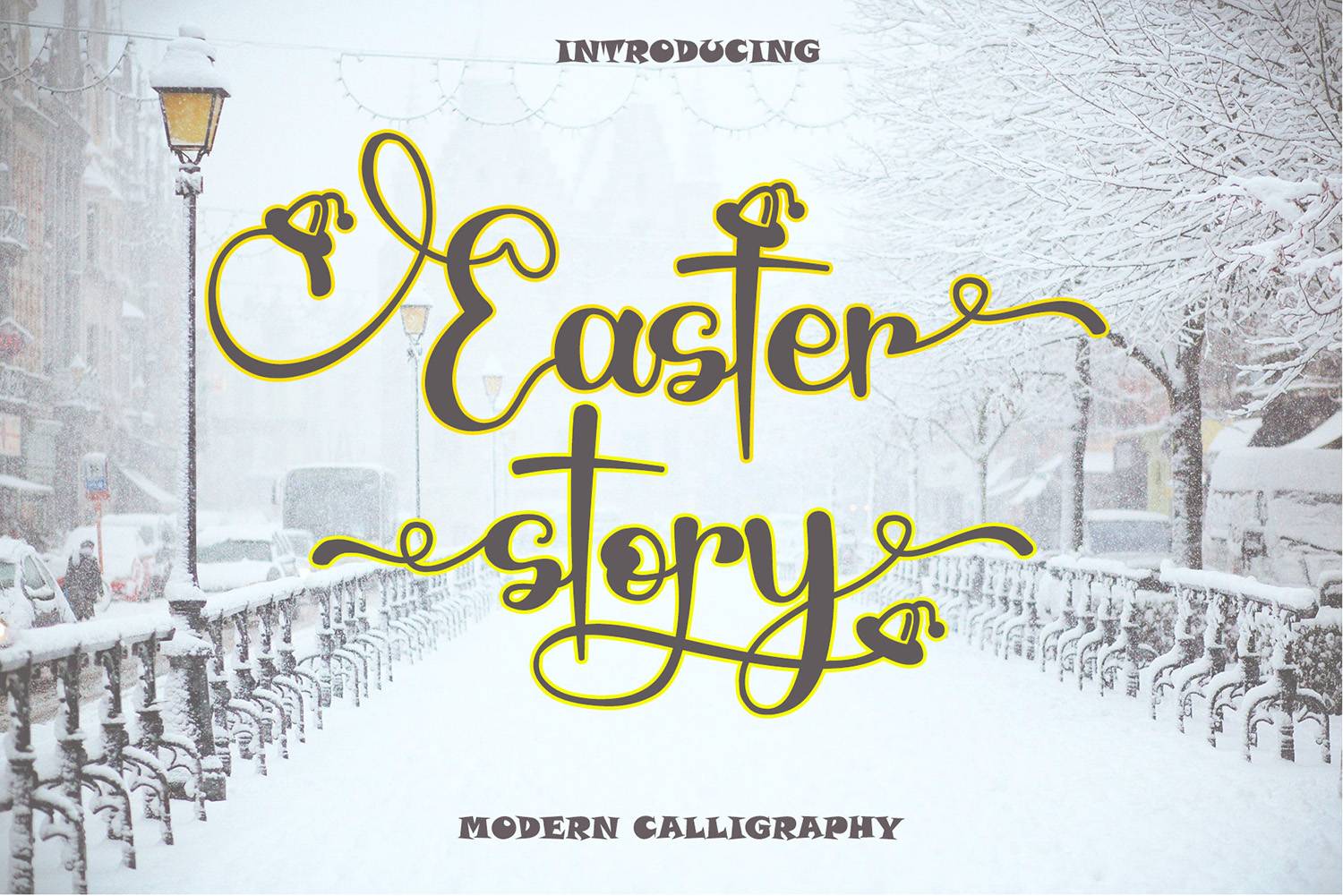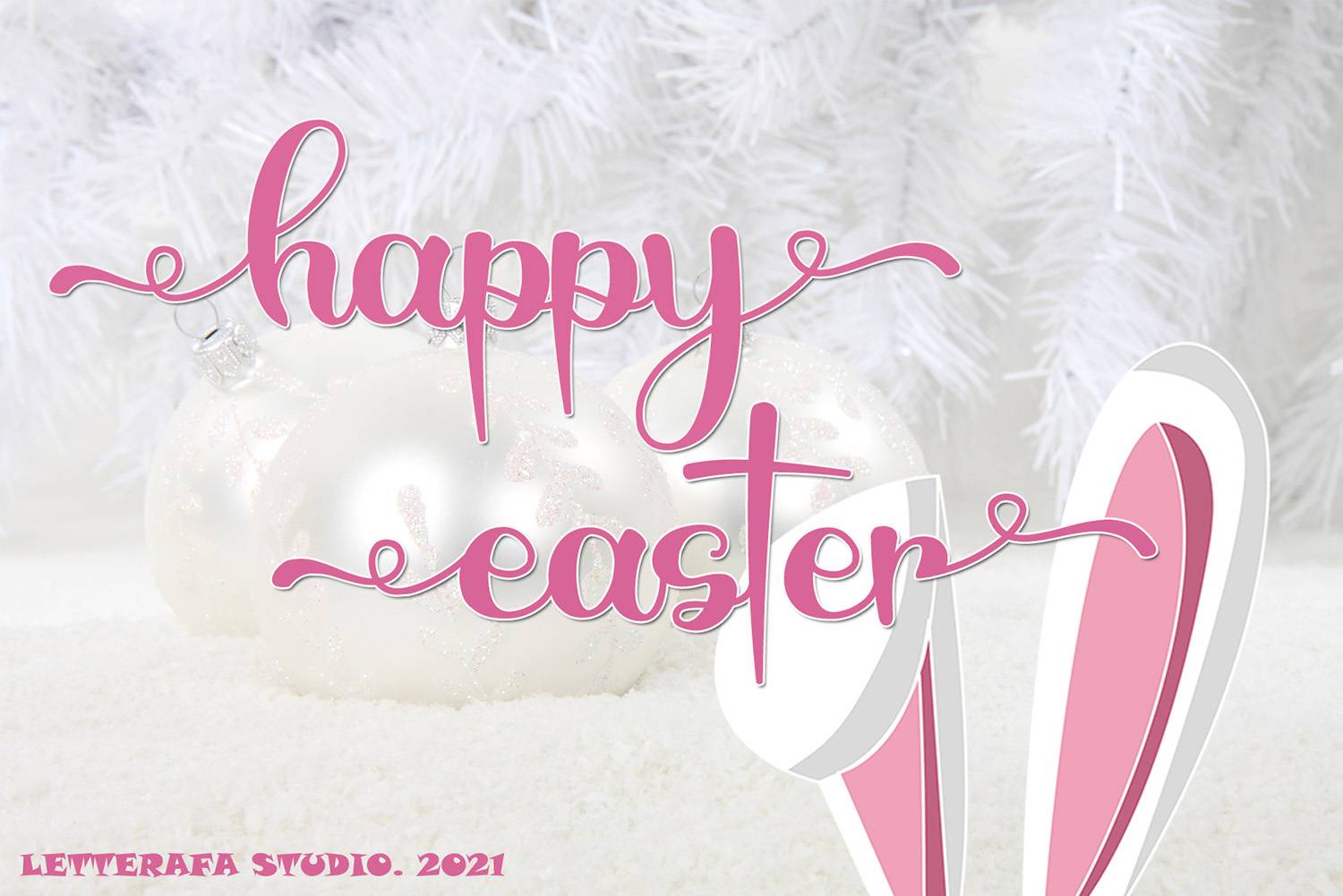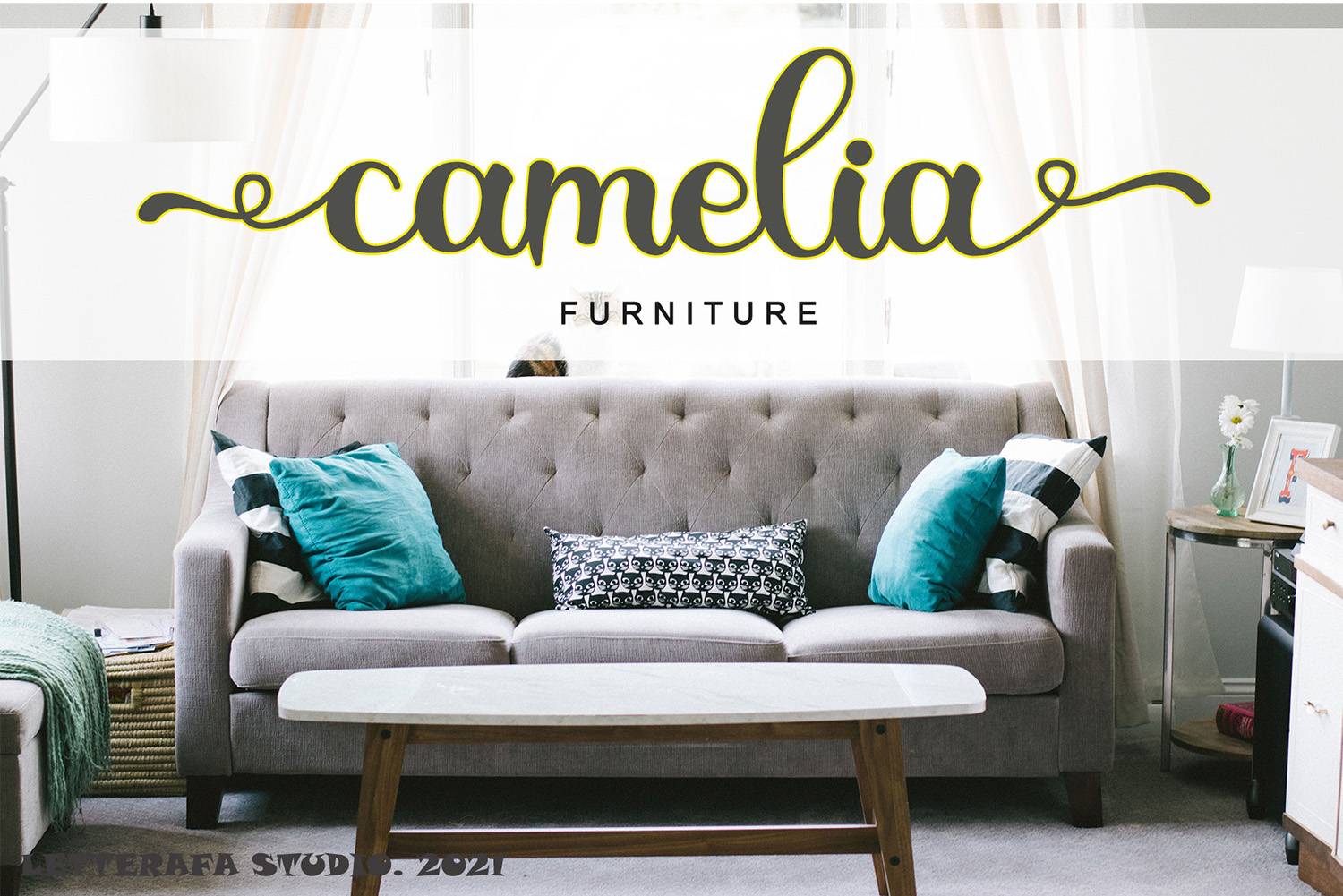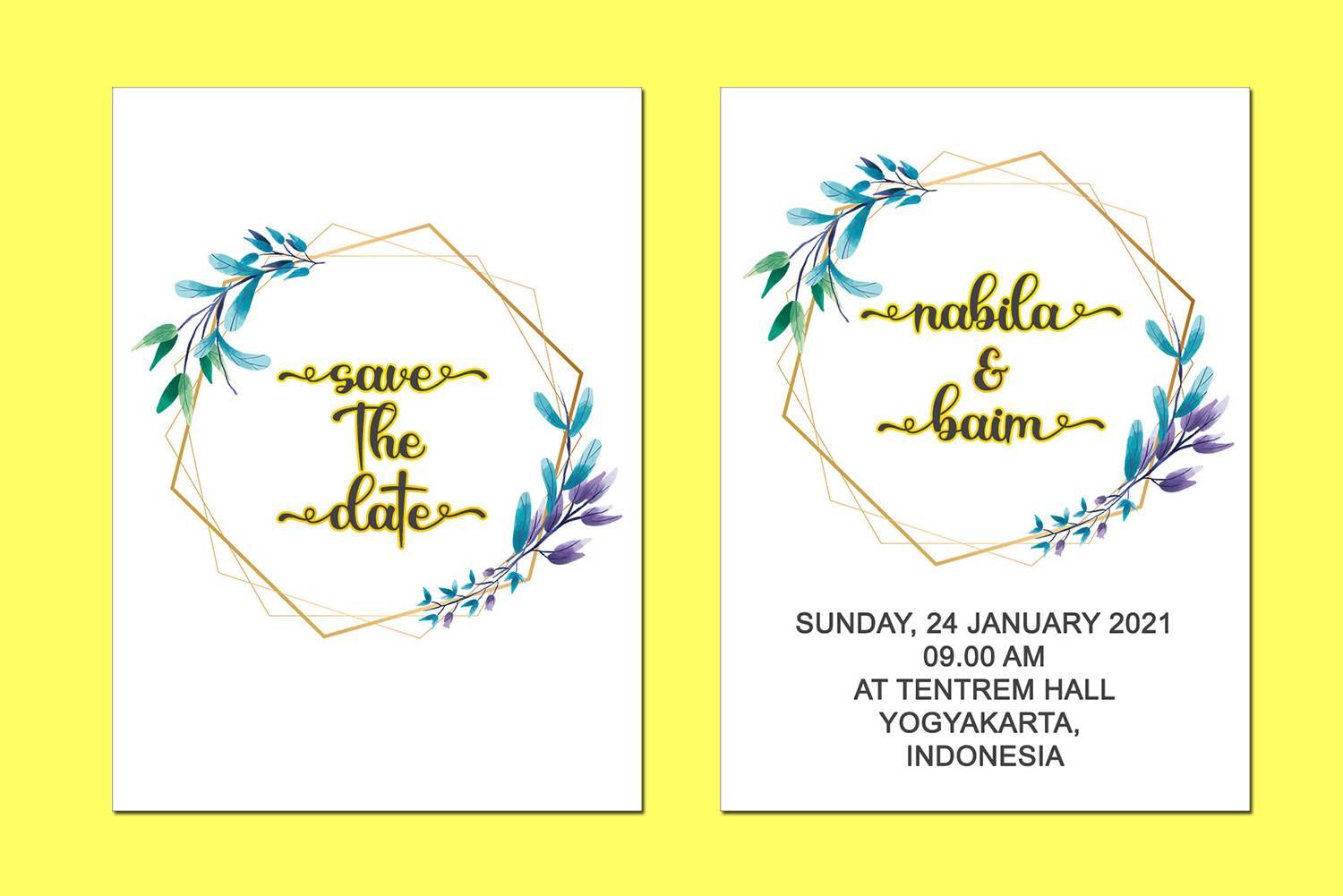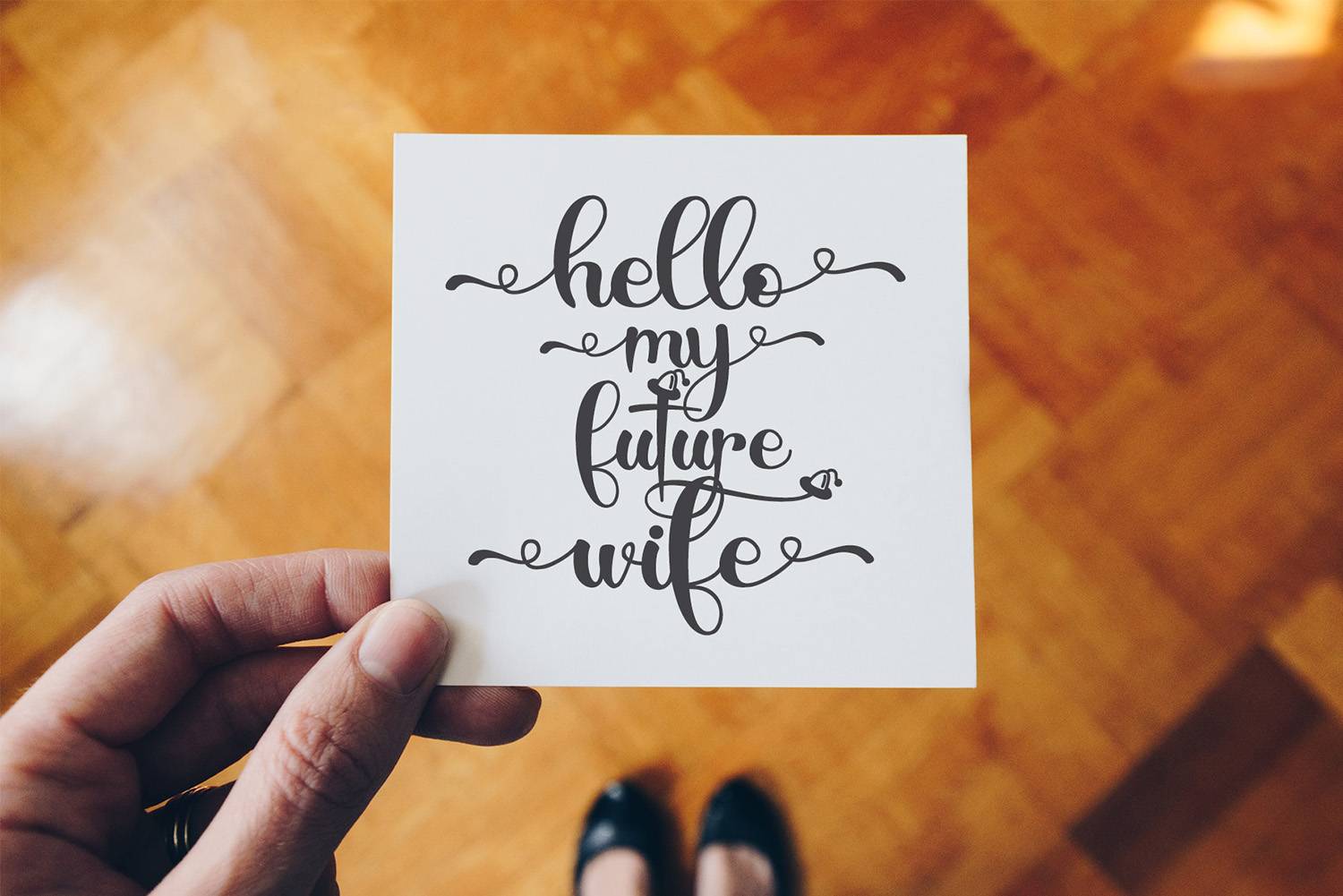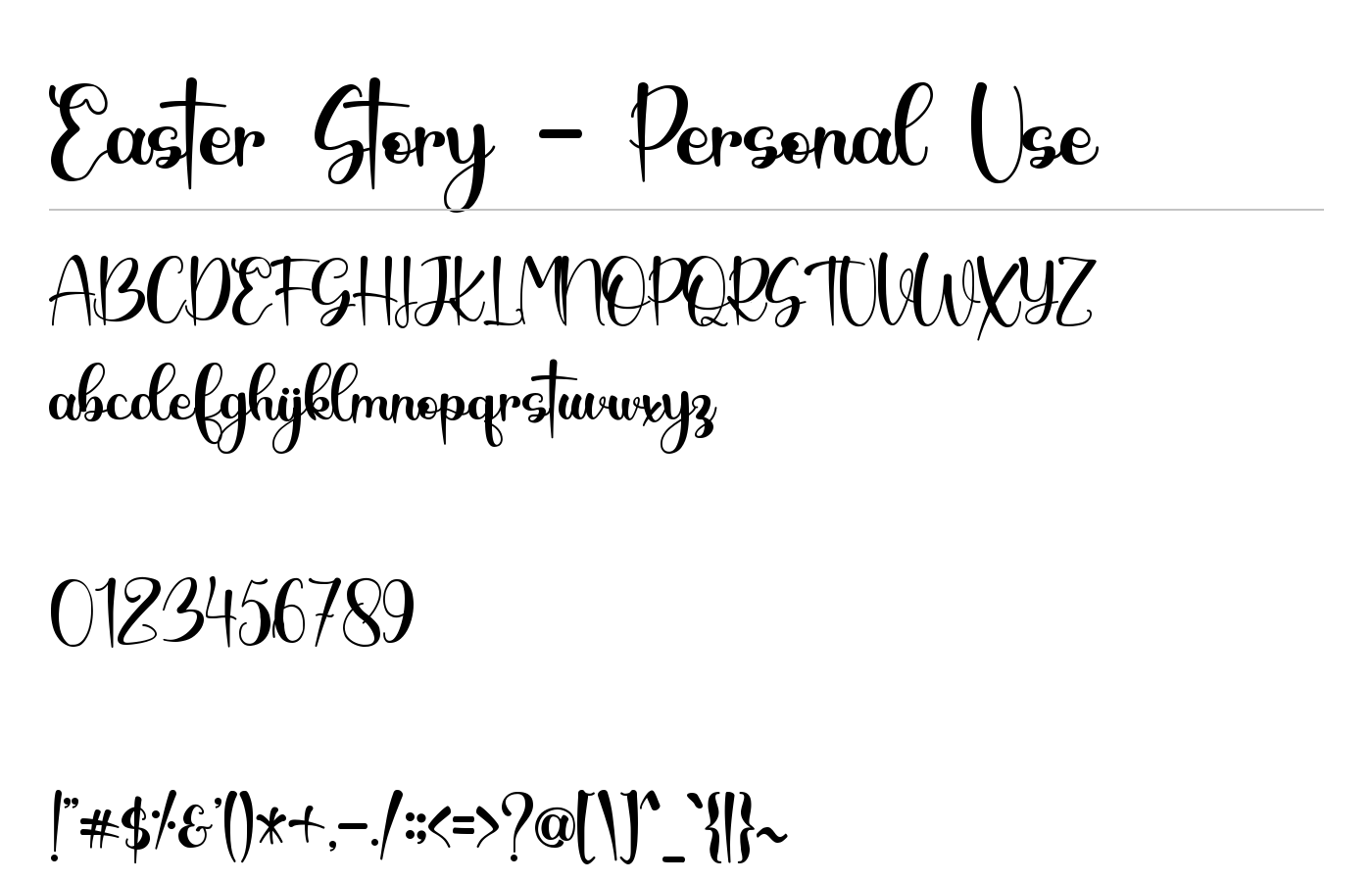
Easter Story is a playful and elegant handwritten script font featuring tall, slender letterforms with charming loops and swashes that add a lively, creative touch. Its light to regular weight and airy spacing make it perfect for personal projects, invitations, and branding that seek a friendly, whimsical vibe. This font works especially well in headlines and decorative text where a warm, approachable style is desired.
Easter Story Font
About Easter Story Font
| Font family | Easter Story Font |
| Designer | Ahmad Afandi |
| Trademark | Letterafa |